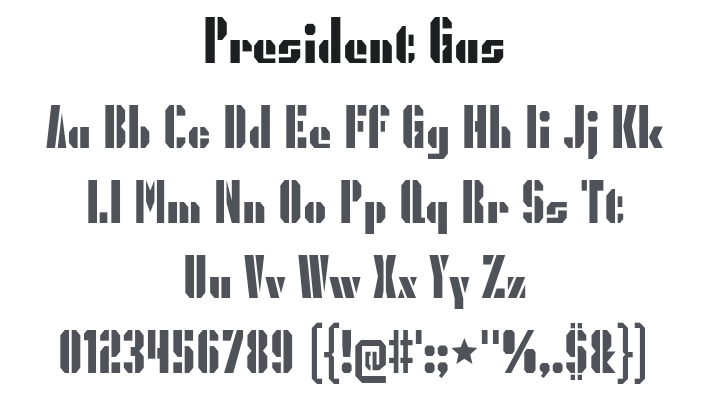
President Gas Font
About President Gas
President Gas is a bold octagonal stencil typeface with precisely chamfered corners on every letterform — clean, mechanical forms with a minimalist authority that feels military-grade and industrial. The consistent 45-degree clipping gives every character a sharp, engineered precision. Perfect for army-themed designs, stencil branding, industrial signage, sci-fi interfaces, and any headline needing cold, no-nonsense technical gravitas.